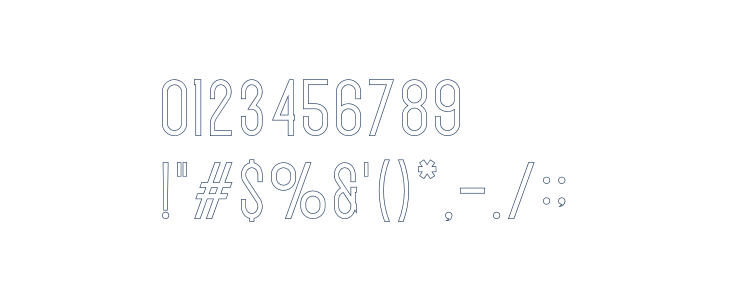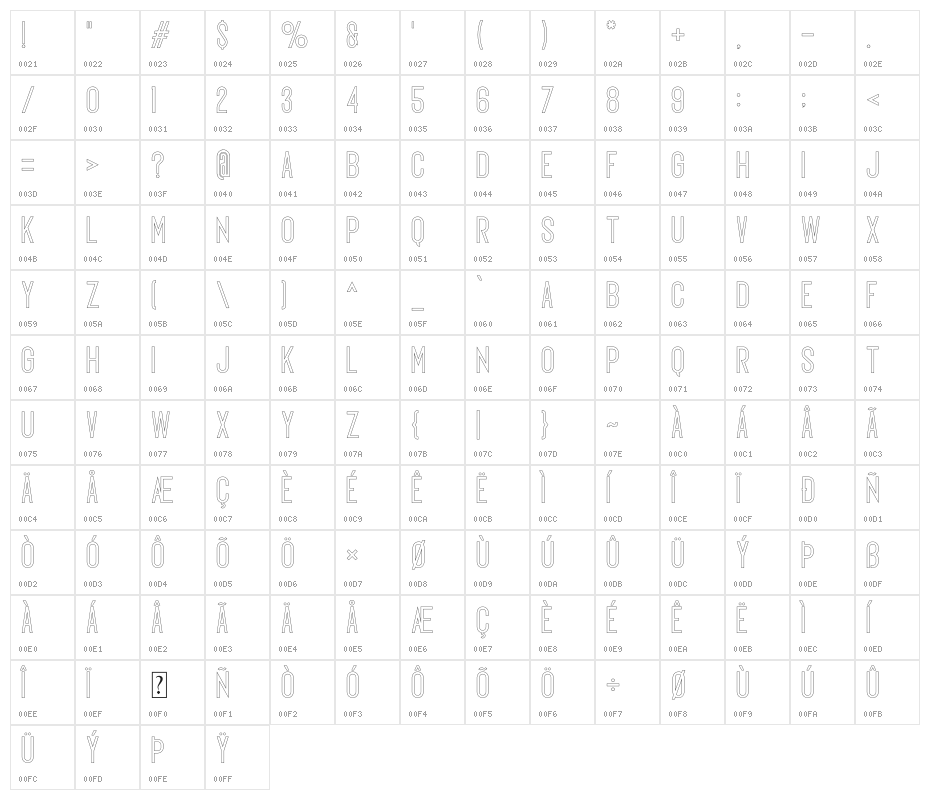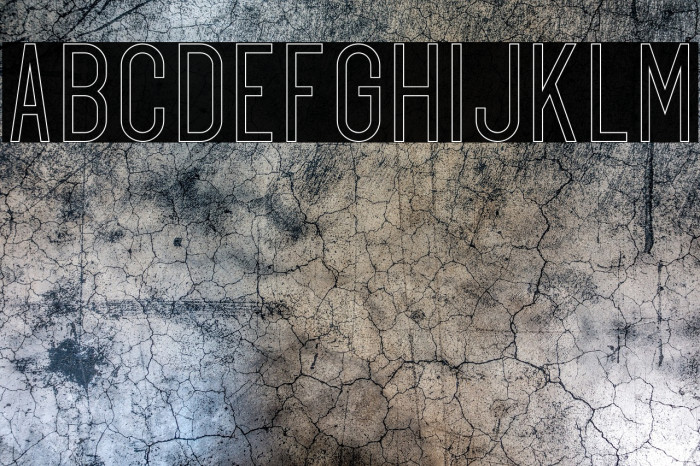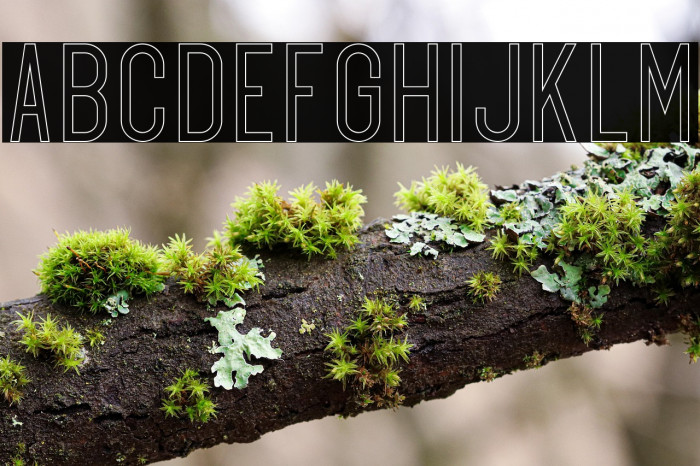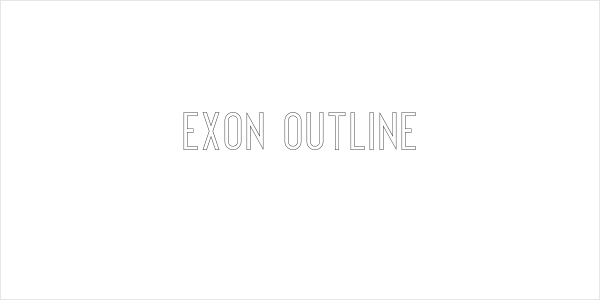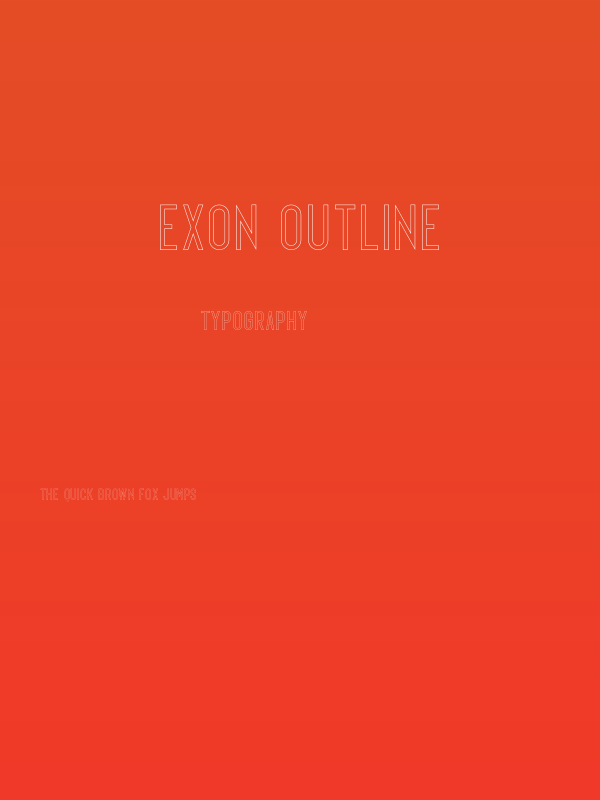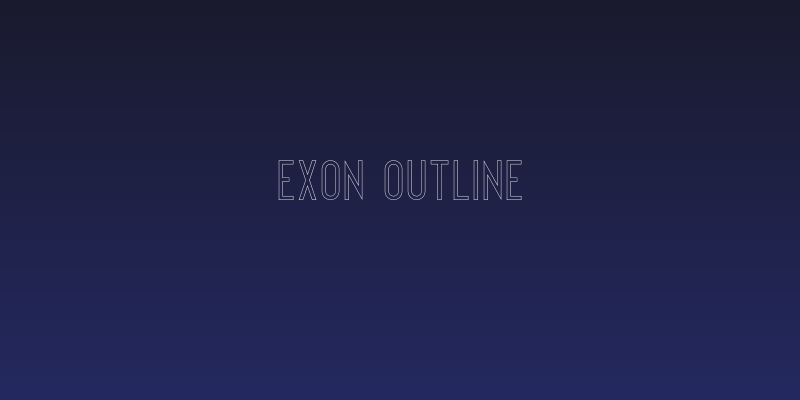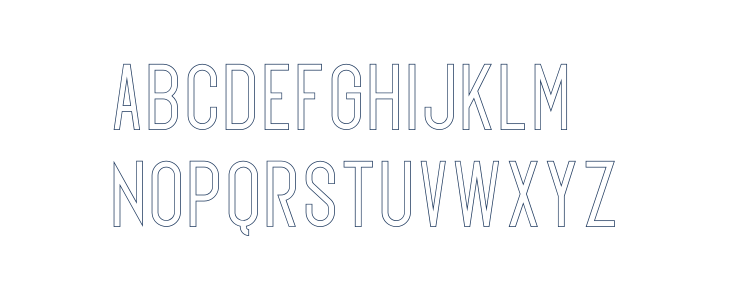
Exon outline Font
Exon outline Description
This font features a clean, geometric outline style that emphasizes clarity and modernity. The characters are constructed with uniform line thickness, creating a cohesive and structured appearance. The uppercase and lowercase letters maintain a consistent height and width, ensuring readability and balance. The numerals and special characters follow the same design principles, offering a seamless integration with the alphabet. This font's outline nature gives it a unique, airy feel, making it suitable for designs that require a contemporary and minimalist touch.